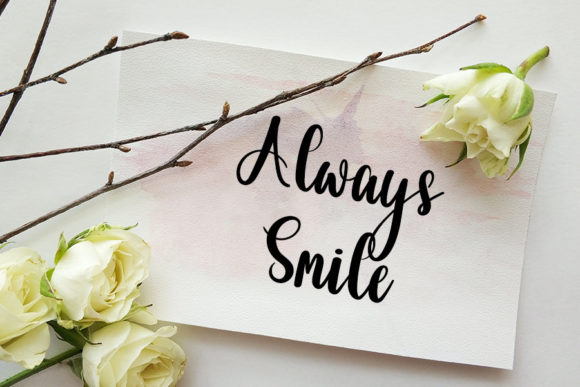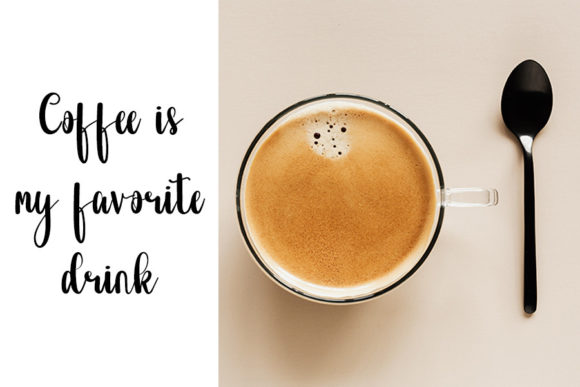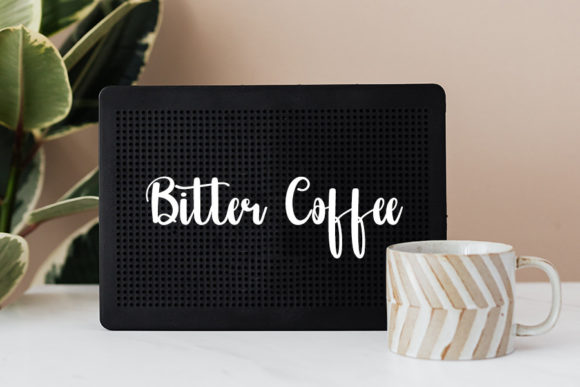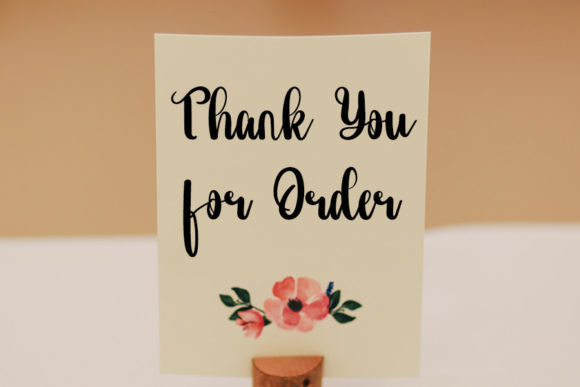
Coffee Break Font: Elevate Your Designs with a Timeless Classic
Are you a designer or crafter looking for a stylish and contemporary font to elevate your projects? Look no further than the Coffee Break Font, a beautiful handwritten font that combines the elegance of timeless classic calligraphy with a modern twist. In this article, we’ll dive into the world of Coffee Break Font, exploring its features, benefits, and uses, as well as provide tips on how to make the most of this stunning font.
What is Coffee Break Font?
Coffee Break Font is a stylish handwritten font that exudes a contemporary atmosphere while maintaining impeccable form. Inspired by the classic calligraphy of the past, this font has been carefully crafted to bring a touch of sophistication and elegance to your designs. With its balanced and varied letterforms, Coffee Break Font is perfect for a wide range of projects, from branding and advertising to packaging and digital media.
Key Features of Coffee Break Font
- Handwritten style: Coffee Break Font boasts a beautiful, handwritten style that adds a personal touch to your designs.
- Contemporary atmosphere: With its modern twist, this font is perfect for designers and crafters who want to create fresh and trendy designs.
- Impeccable form: The font’s classic calligraphy inspiration ensures that it maintains a level of sophistication and elegance.
- Balanced and varied: Coffee Break Font features balanced and varied letterforms, making it perfect for body text and headlines.
Benefits of Using Coffee Break Font
So, why choose Coffee Break Font for your designs? Here are just a few benefits of using this stunning font:
- Adds elegance and sophistication: Coffee Break Font brings a touch of classic elegance to your designs, making them stand out from the crowd.
- Perfect for branding and advertising: With its contemporary atmosphere and stylish design, this font is ideal for branding and advertising projects.
- Versatile: Coffee Break Font can be used for a wide range of projects, from digital media to packaging and print materials.
- Easy to read: The font’s clear and balanced design makes it easy to read, even at small sizes.
Tips for Using Coffee Break Font
To make the most of Coffee Break Font, here are a few tips to keep in mind:
- Pair with a sans-serif font: For a stylish and modern look, pair Coffee Break Font with a sans-serif font for body text.
- Use for headlines and titles: The font’s elegant design makes it perfect for headlines and titles, adding a touch of sophistication to your designs.
- Experiment with colors: Coffee Break Font looks great in a range of colors, so don’t be afraid to experiment and find the perfect hue for your design.
- Pay attention to spacing: To ensure that your text is easy to read, pay attention to spacing and adjust as needed.
Who is Coffee Break Font for?
Coffee Break Font is perfect for designers and crafters who want to add a touch of elegance and sophistication to their projects. Whether you’re working on a branding project, creating packaging, or designing digital media, this font is a great choice. Some examples of designers and crafters who may benefit from Coffee Break Font include:
- Graphic designers: Coffee Break Font is a great addition to any graphic designer’s toolkit, perfect for branding, advertising, and marketing projects.
- Crafters: If you’re a crafter who loves to create handmade cards, gift tags, and other paper crafts, Coffee Break Font is a beautiful choice.
- Digital artists: Digital artists who create digital art, illustrations, and graphics will love the elegant and sophisticated design of Coffee Break Font.
In conclusion, Coffee Break Font is a stunning handwritten font that combines the elegance of timeless classic calligraphy with a modern twist. With its balanced and varied letterforms, this font is perfect for a wide range of projects, from branding and advertising to packaging and digital media. Whether you’re a designer or crafter, Coffee Break Font is a great choice for anyone looking to add a touch of sophistication and elegance to their designs.